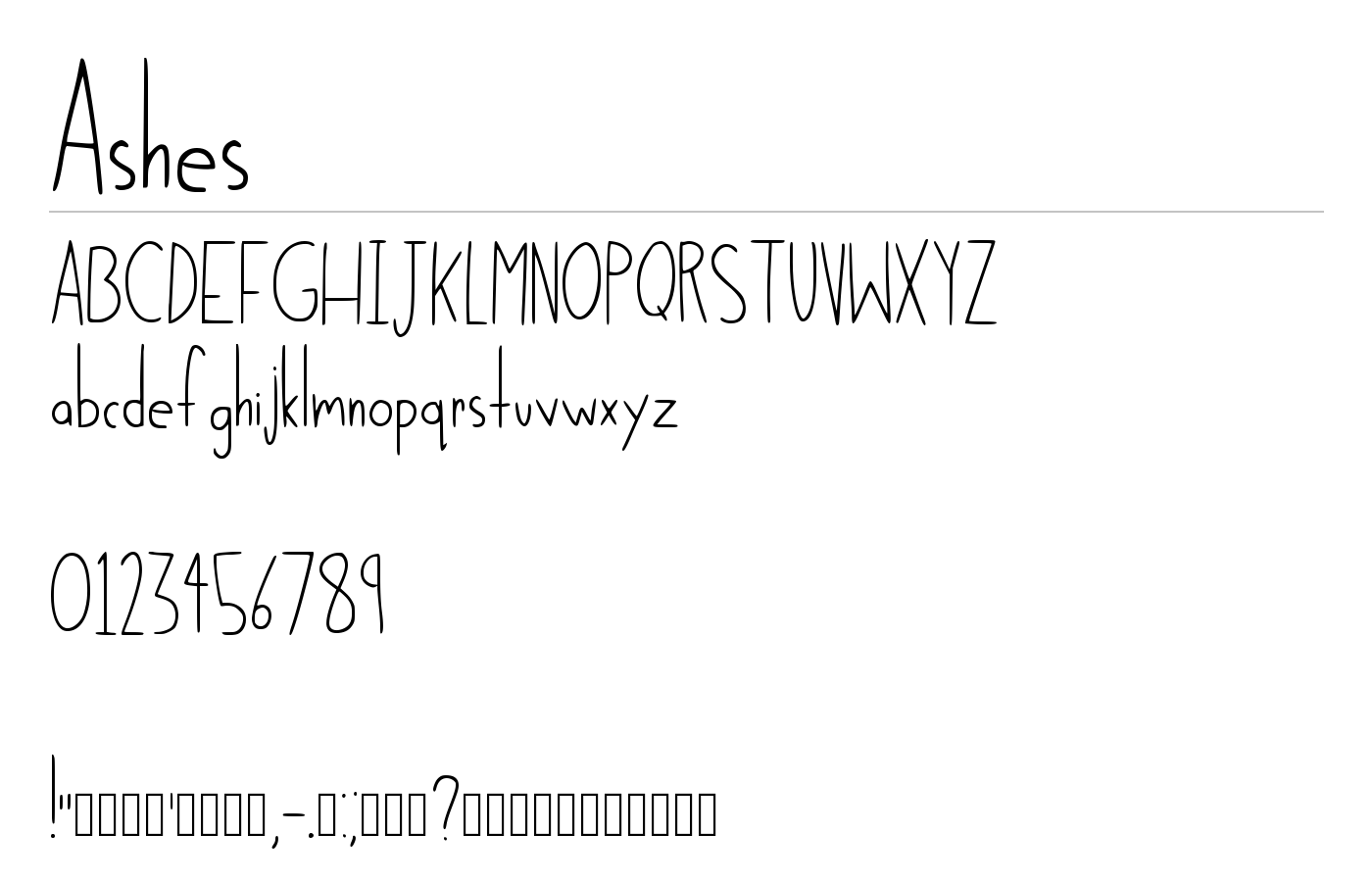
Ashes is a tall, narrow sans serif font with a hand-drawn, whimsical feel. Its thin strokes and slightly irregular letterforms lend it a playful yet approachable personality, making it ideal for creative projects, informal branding, or youthful editorial work. This font works well where a touch of charm and uniqueness is desired without sacrificing readability.
Ashes Font
About Ashes Font